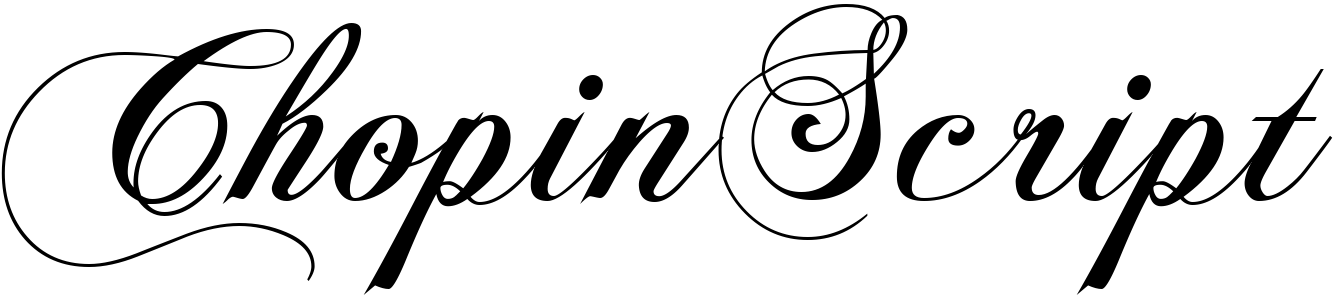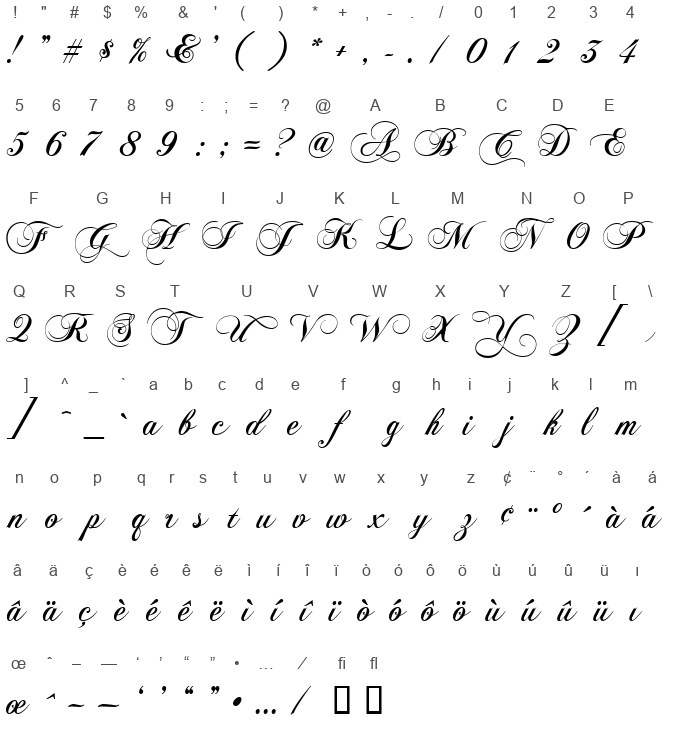
ChopinScript is a font that dances on the page, much like the compositions of the composer it's named after, Frédéric Chopin. It's a font that carries the elegance and grace of the Romantic era into the digital age, making each letter feel as though it's been personally crafted with an artist's touch. Designed to mimic the fluidity and expressiveness of calligraphy, ChopinScript is a free-flowing, script typeface that adds a personal, handwritten charm to any project it graces.
The beauty of ChopinScript lies in its intricate swirls and flourishes, which give it a distinctly opulent and romantic vibe. Each letter is carefully designed to connect smoothly with the next, allowing for a seamless writing experience that's as pleasing to the eye as it is to use. This font is perfect for wedding invitations, greeting cards, logos, or any project that calls for a touch of sophistication and elegance. Despite its old-world charm, ChopinScript remains highly readable, making it a versatile choice for both digital and print mediums.
What's remarkable about ChopinScript is not just its visual appeal, but also its availability to a broad audience. As a font that's freely available for personal use, it embodies the spirit of sharing art with the world, much like Chopin shared his timeless music. While it may not be as suitable for more formal or corporate applications due to its ornate nature, ChopinScript shines when used to impart a sense of beauty, emotion, and individuality.
In sum, ChopinScript is a testament to the enduring allure of handwritten script in an increasingly digital world. It's a bridge between the past and the present, offering a way to infuse modern projects with the elegance of yesteryear. Whether you're looking to add a touch of romance to your designs or to capture the personal feel of handcrafted art, ChopinScript is a font that sings beautifully on the page.
ChopinScript